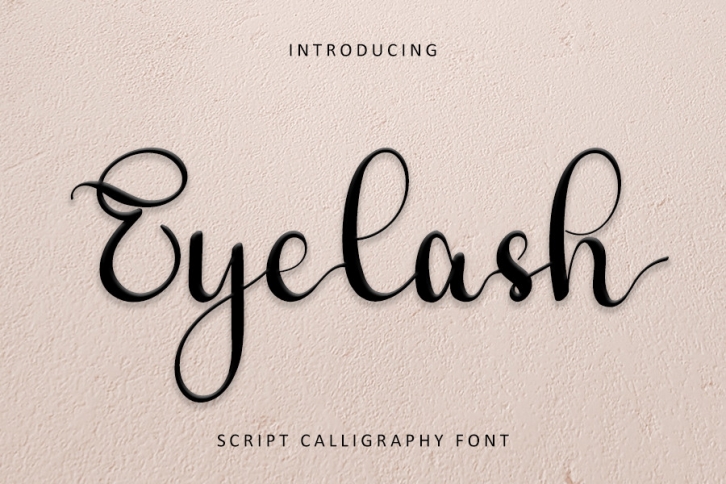
Eyelash is a stylish handwritten font with a contemporary atmosphere and impeccable form, inspired by a timeless classic calligraphy. Balanced and varied, this font was designed to enhance the beauty of your projects.